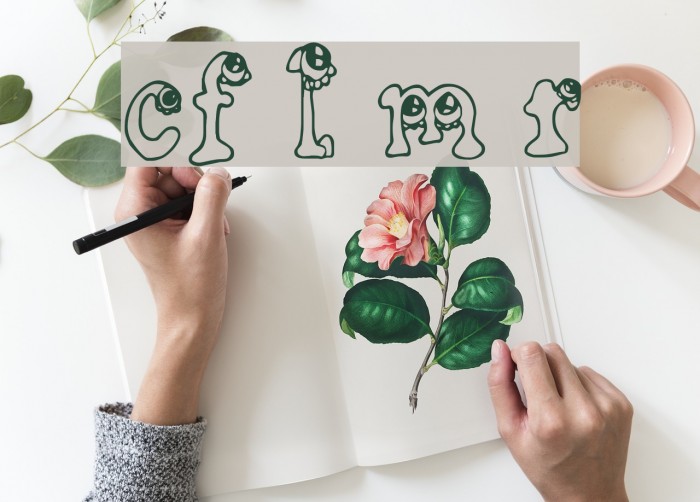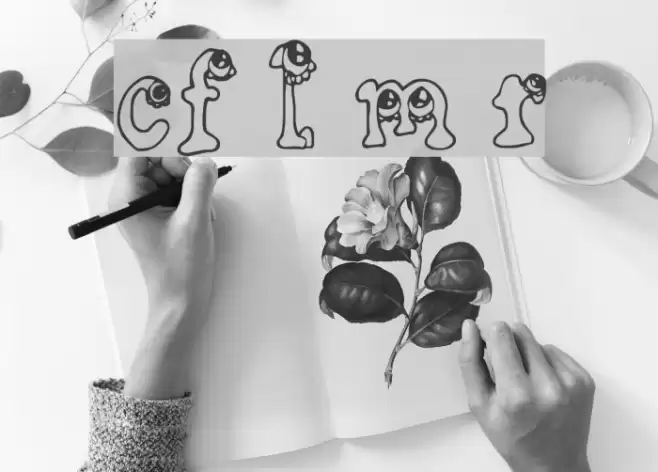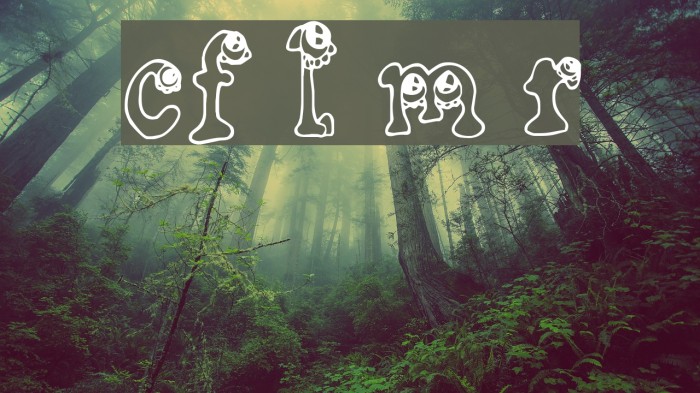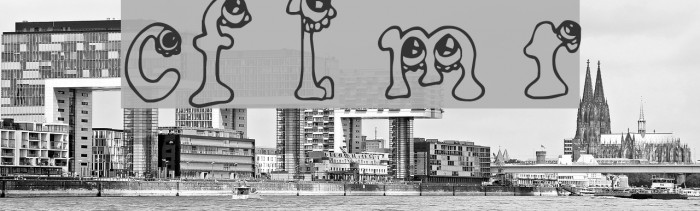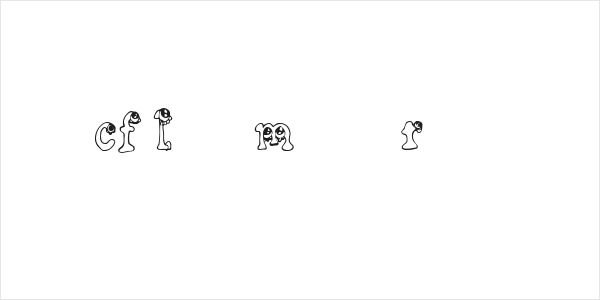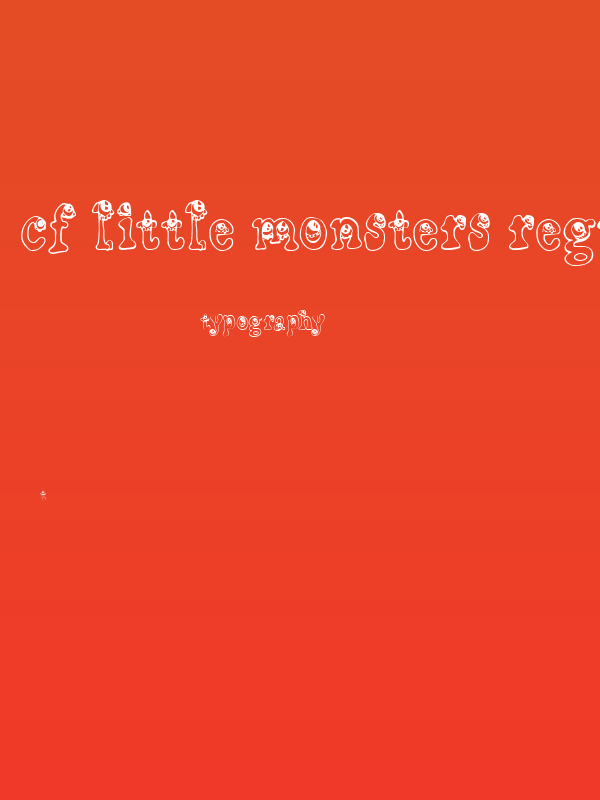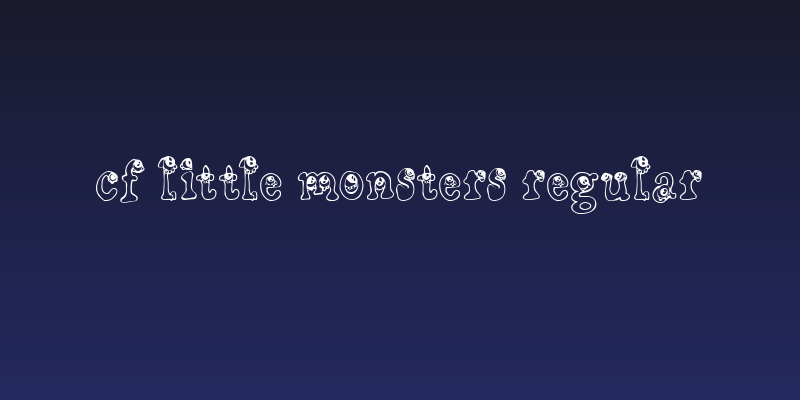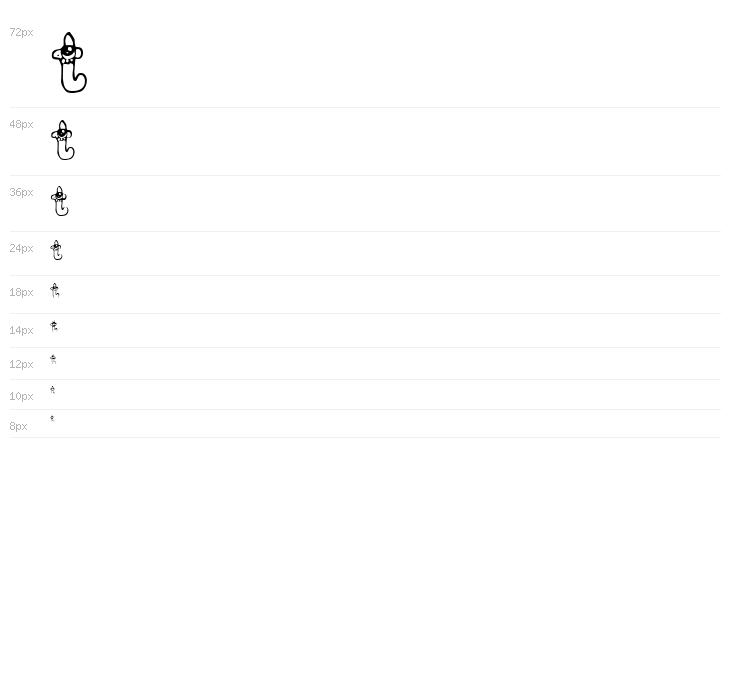
CF Little Monsters Regular Font
CF Little Monsters Regular Description
This playful and whimsical font features a unique design with each character incorporating fun, monster-like elements. The letters are adorned with eyes and smiles, giving them a lively and animated appearance. The strokes are irregular, adding to the quirky and informal style. This font is perfect for projects that require a touch of humor and creativity, making it ideal for children's books, Halloween-themed designs, or playful branding. The overall look is both engaging and entertaining, capturing attention with its imaginative details.
| Overall Style | Whimsical |
| Proposed Projects | Children's books, Halloween invitations, playful branding, party decorations. |